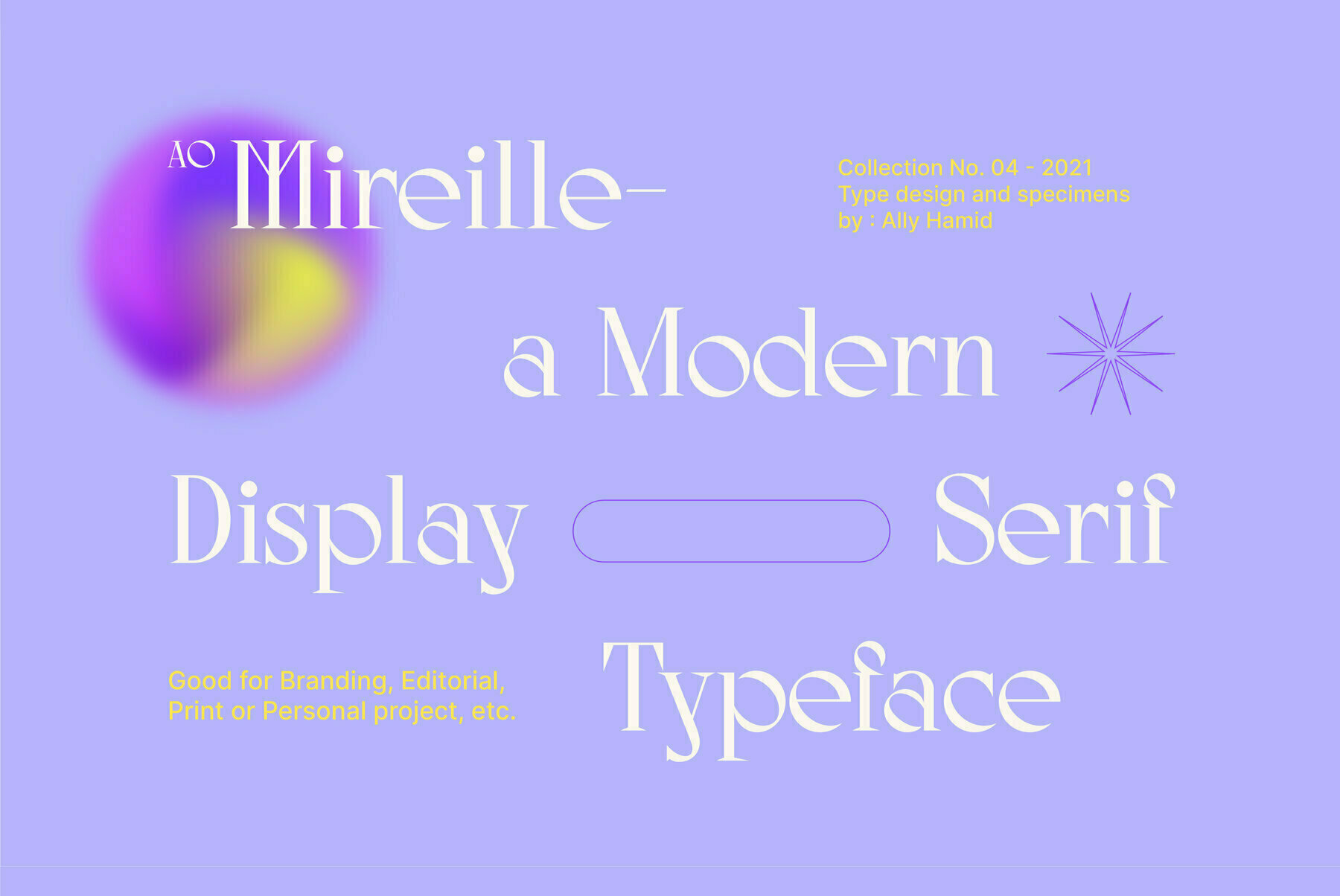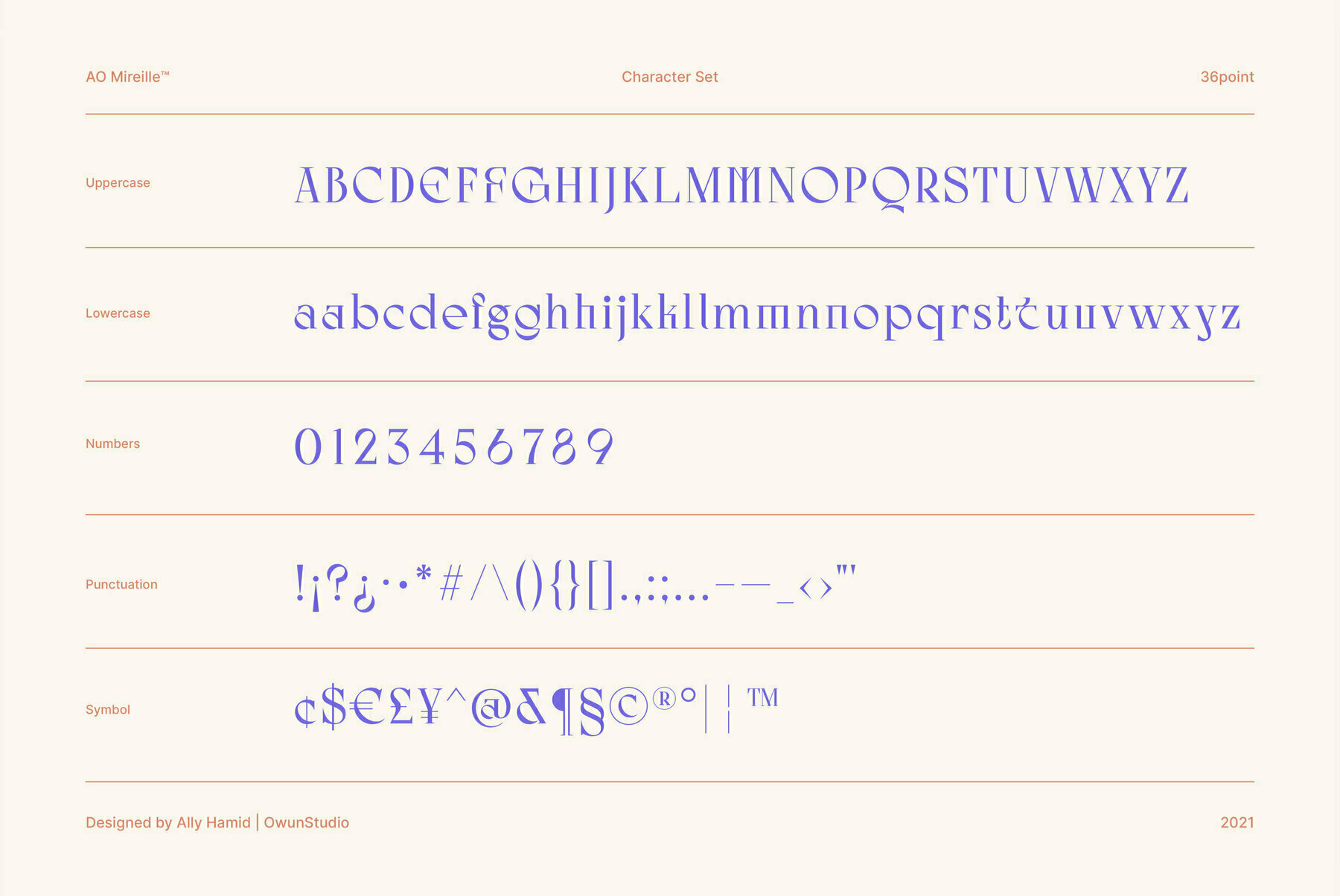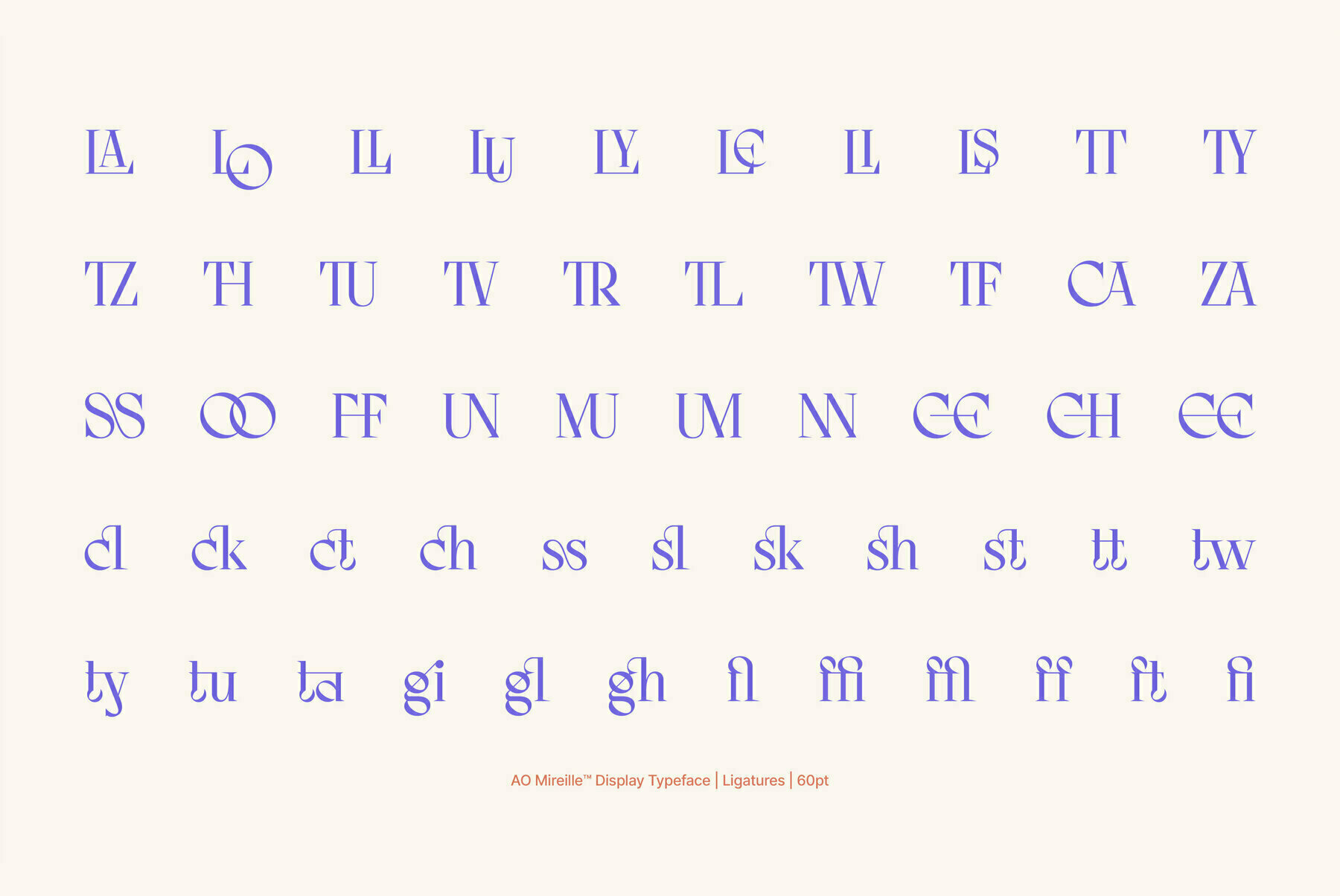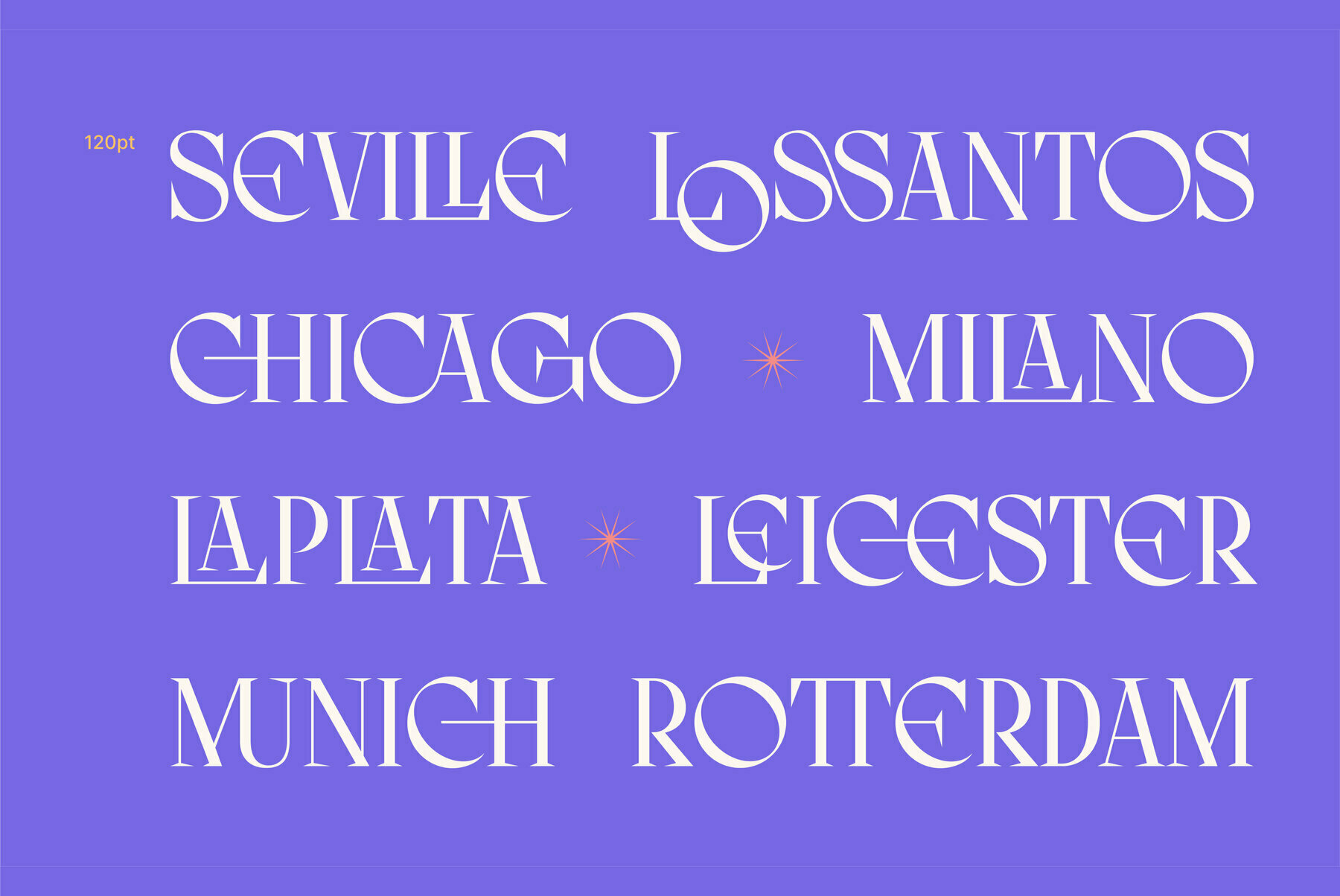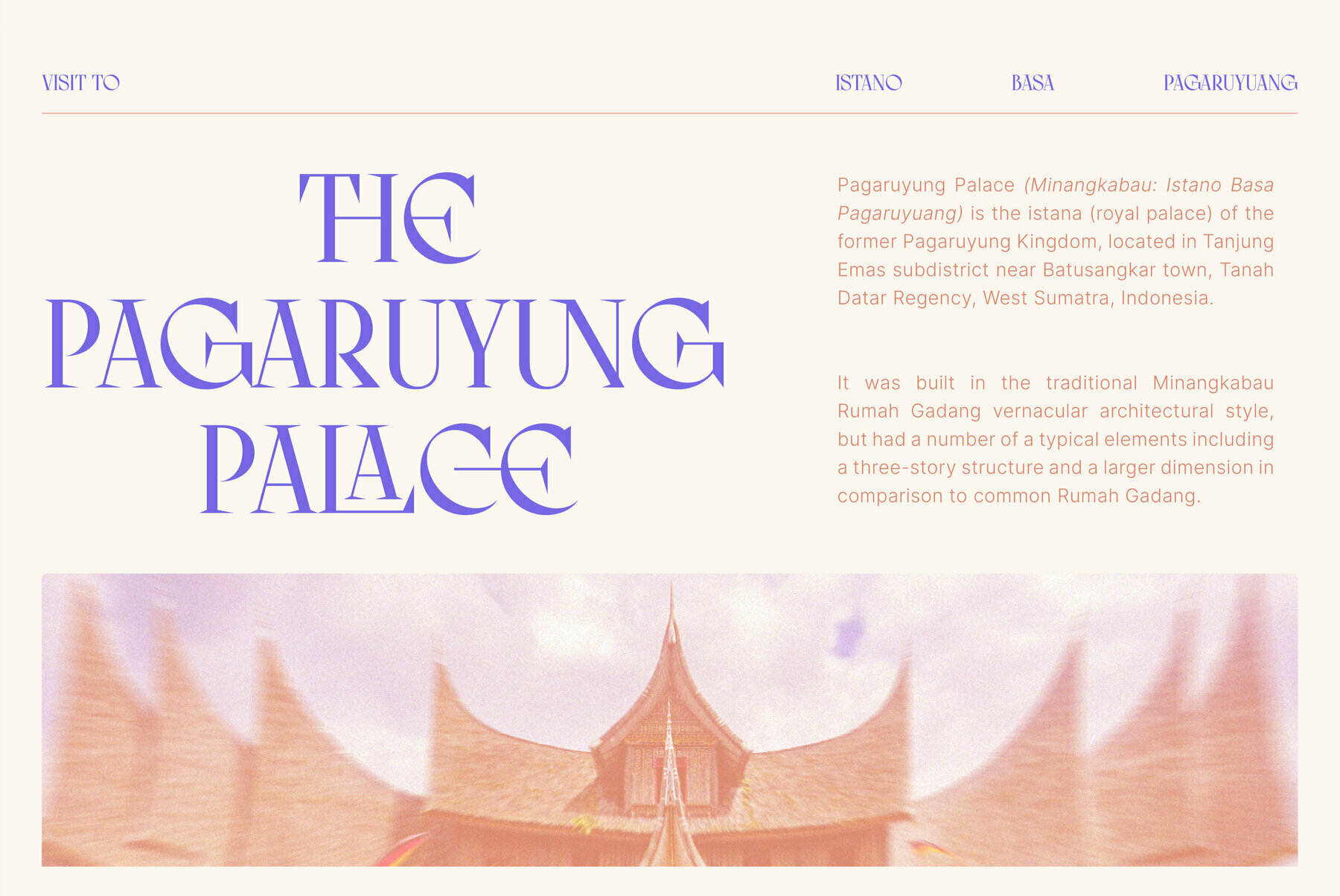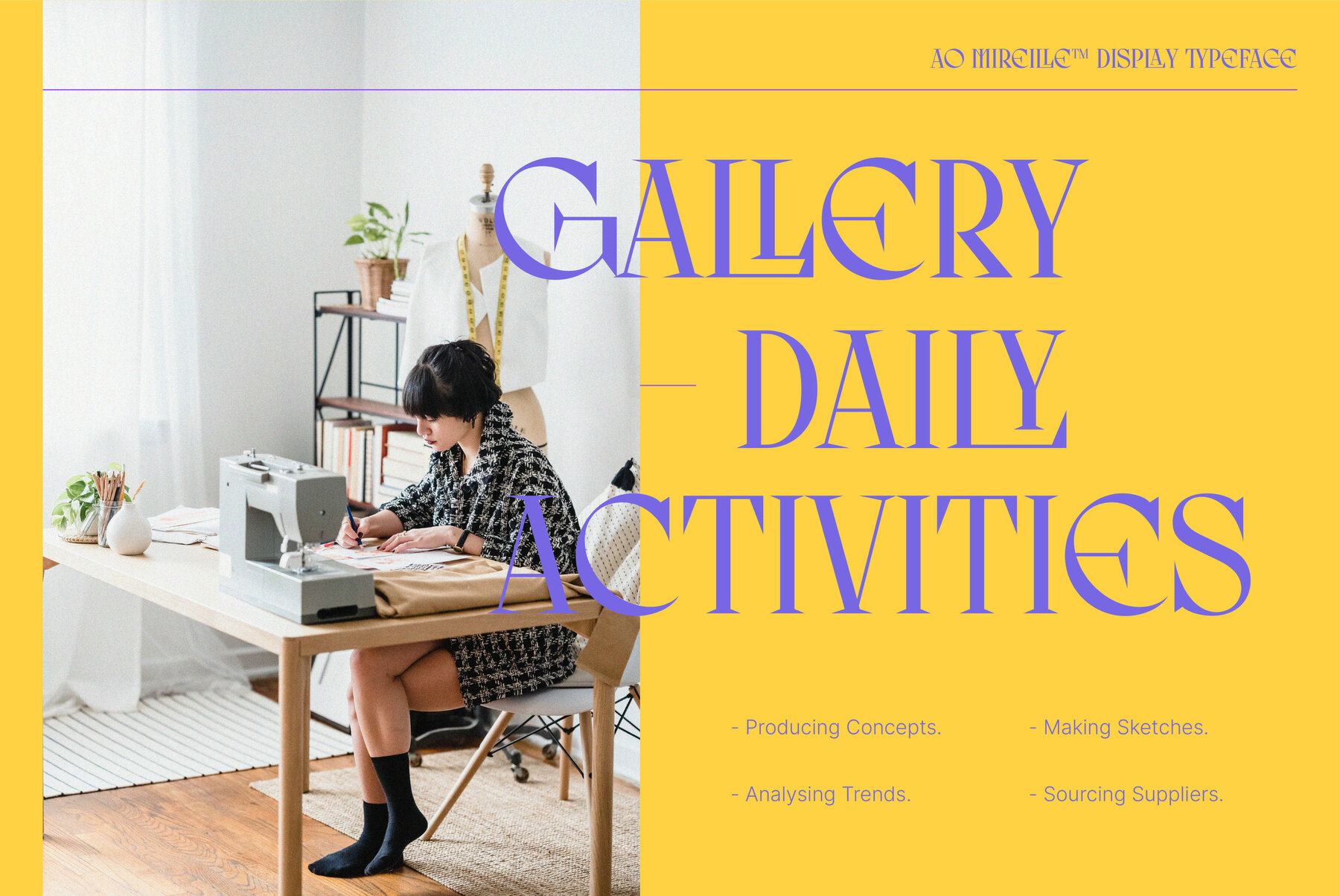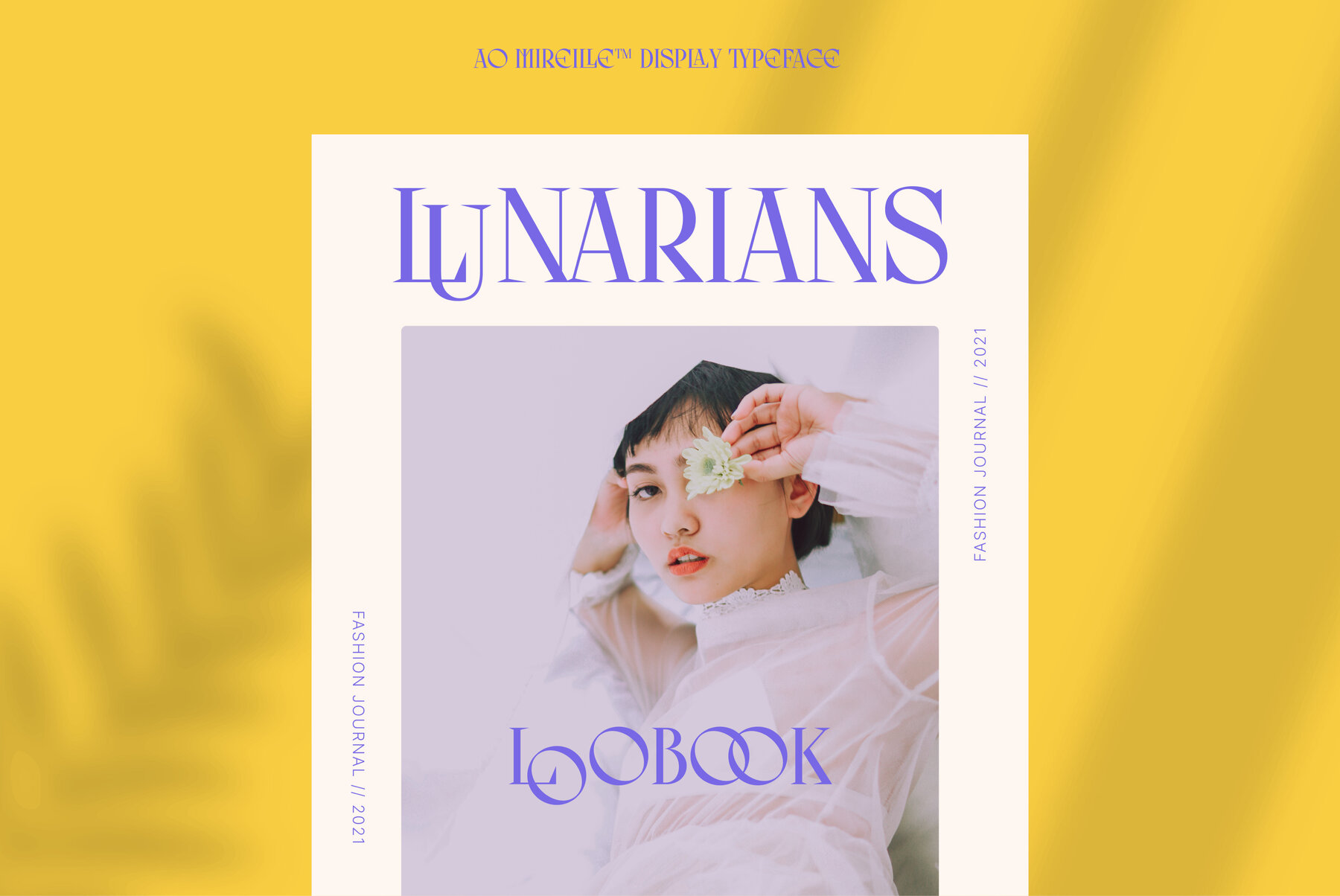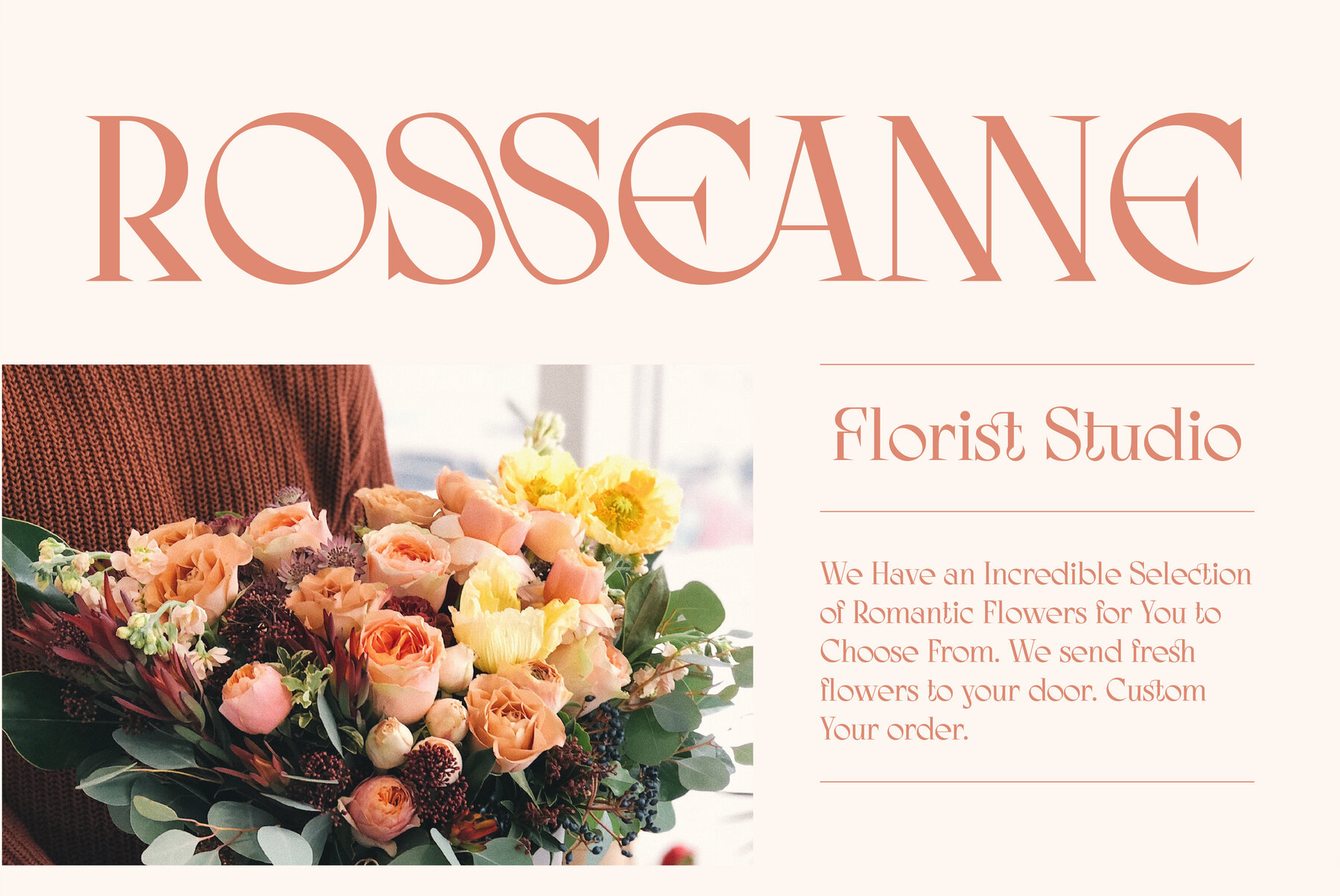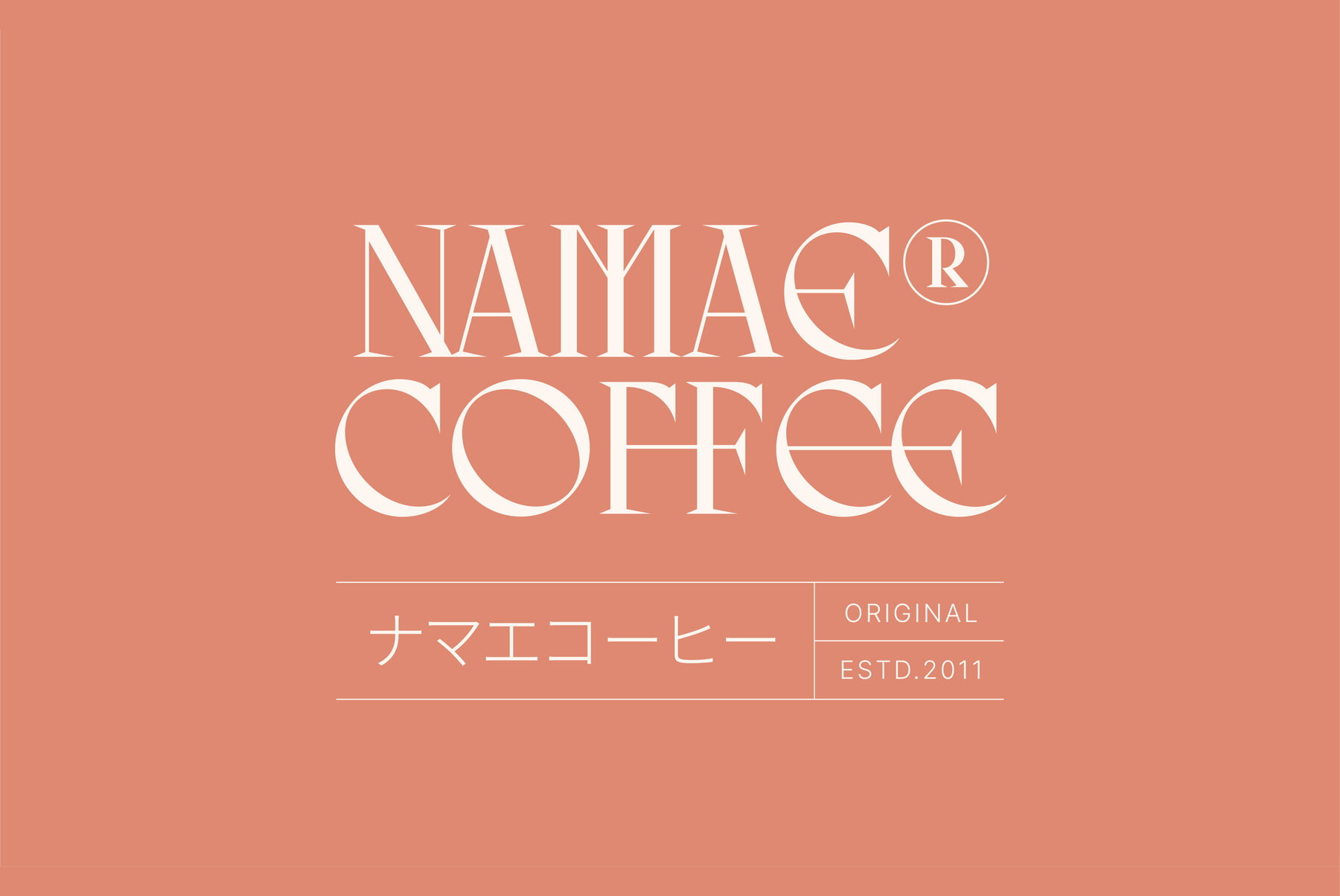
AO Mireille Font
AO Mireille Regular
AO Mireille embodies elegance with a modern twist, seamlessly blending sophistication into any project. As a versatile display typeface, it adds a refined touch to branding and editorial endeavors, while equally enhancing printing or personal projects.AO Mireille: Elegant Display Serif Fit for Versatile Designs